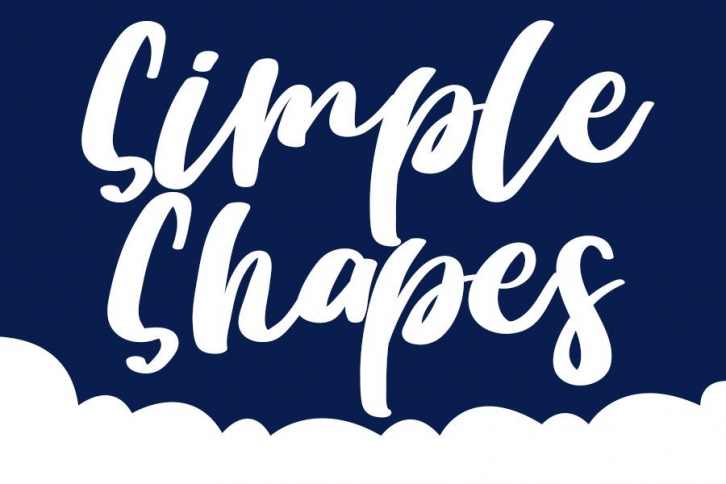
Simple Shapes is a sweet and friendly handwritten font. Its natural and unique style makes it incredibly fitting to a large pool of designs. The only limit is your imagination!